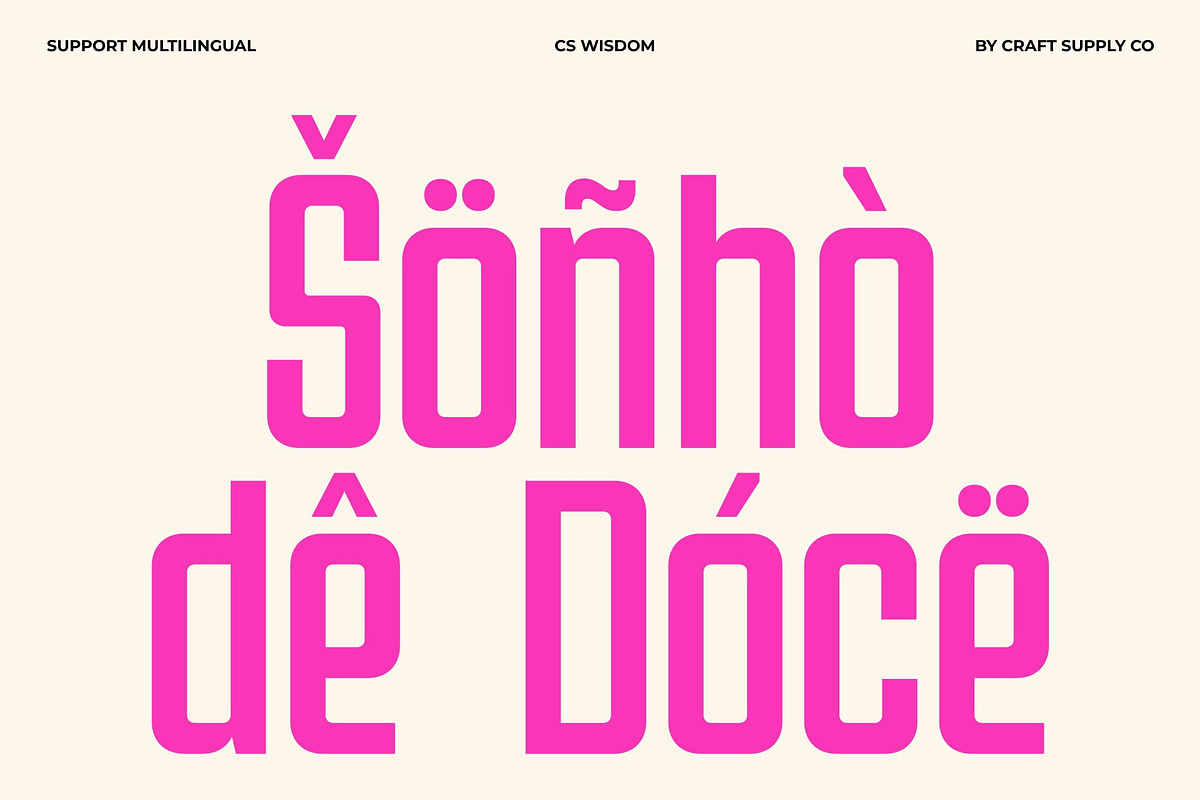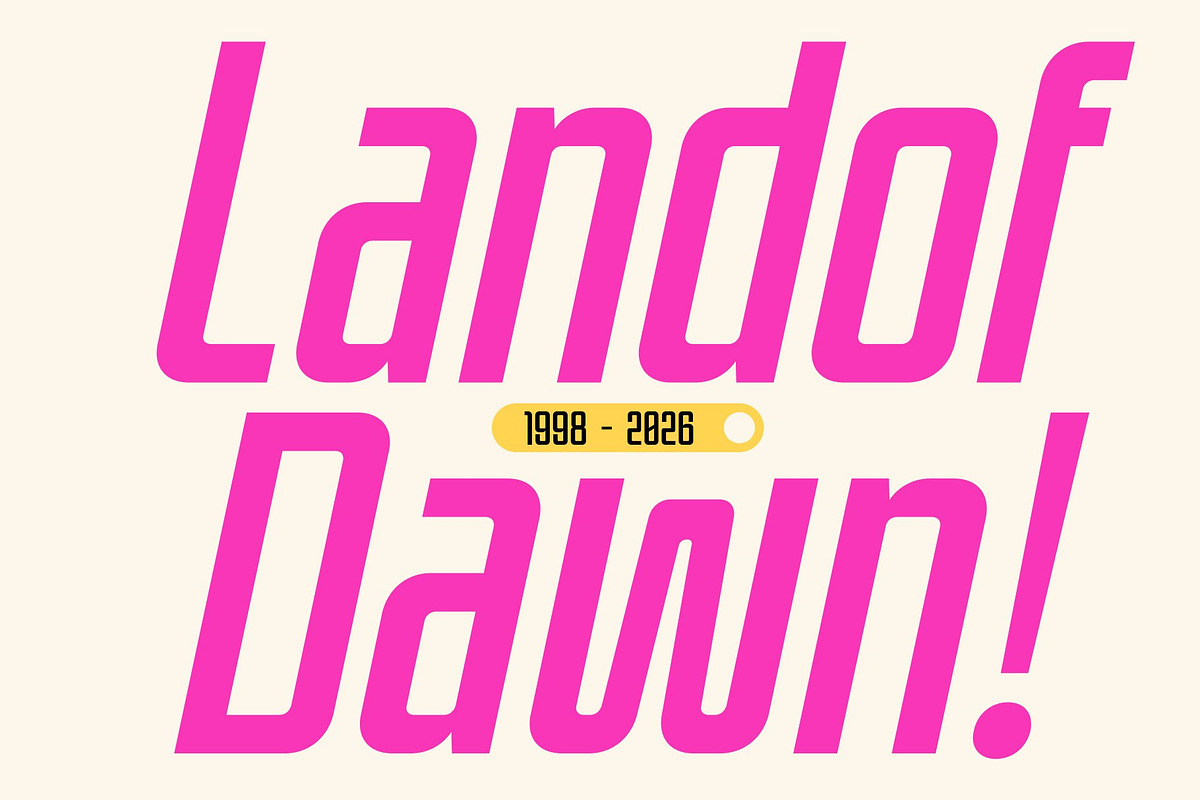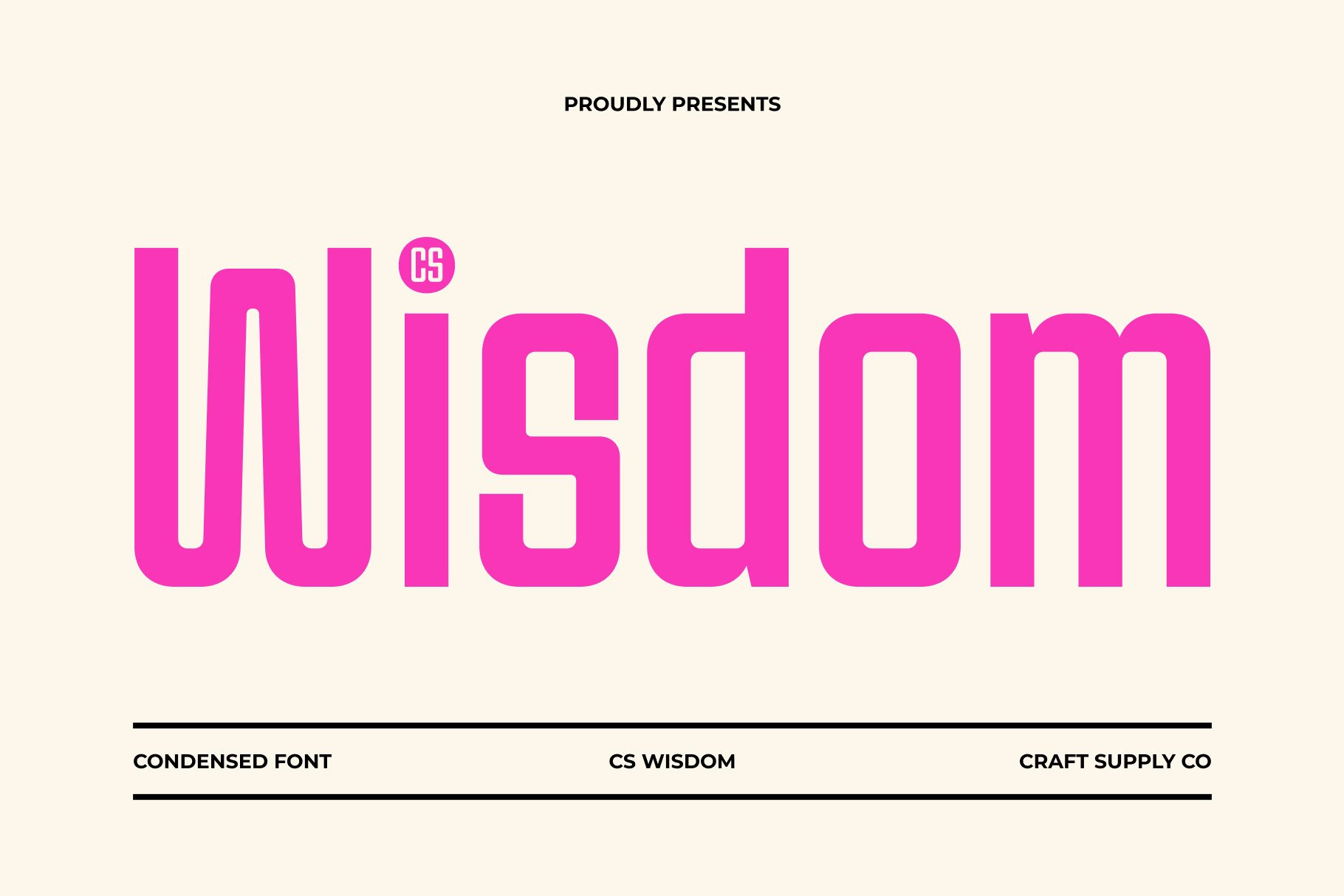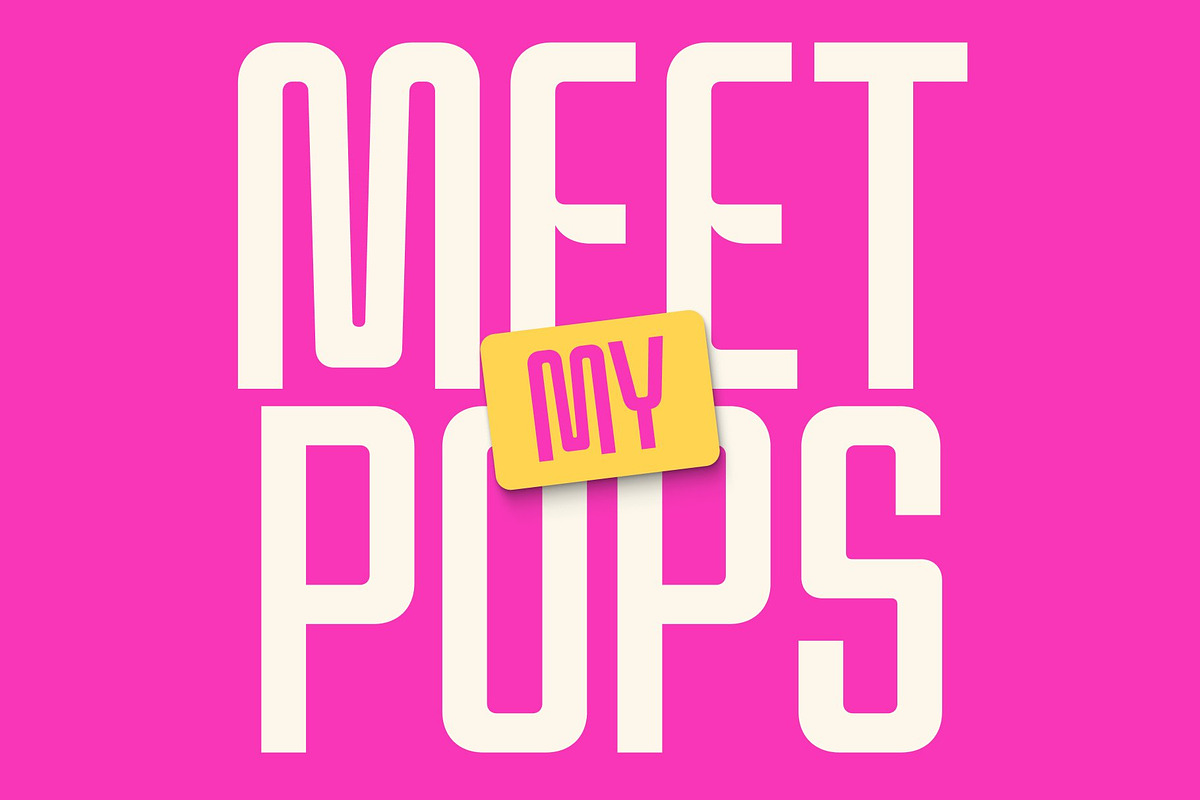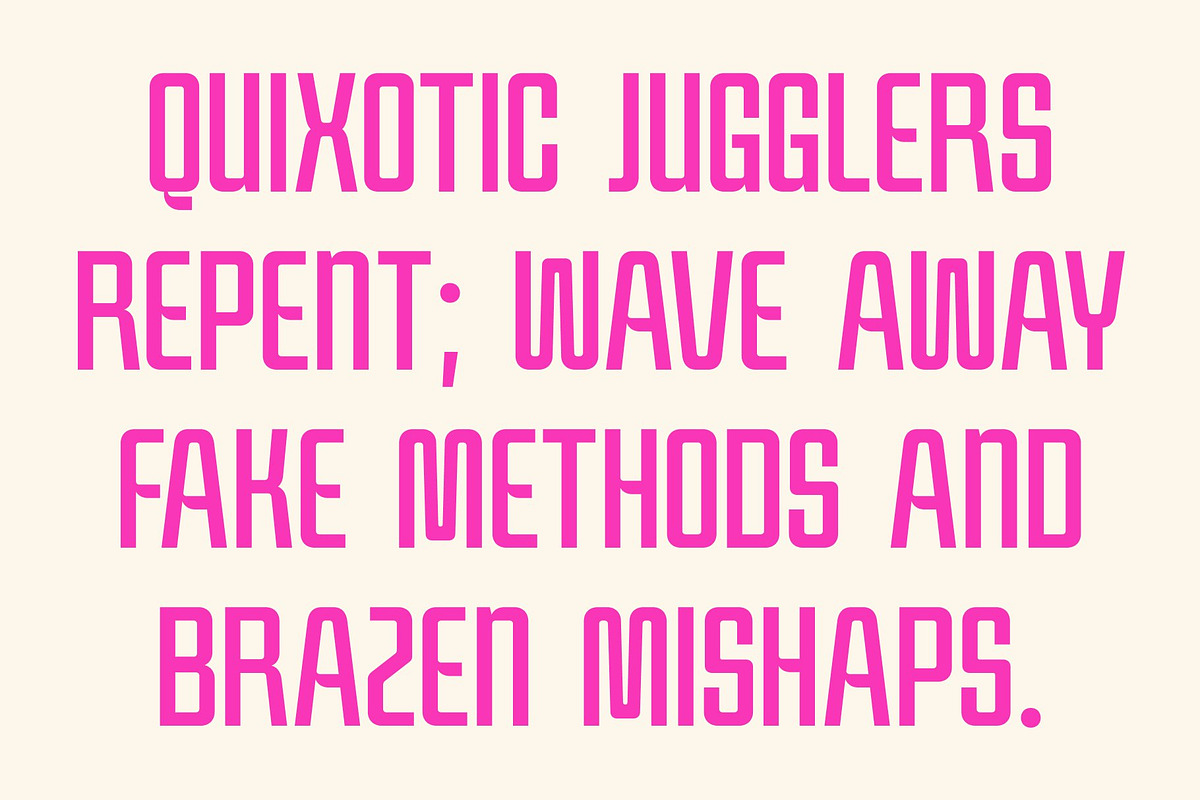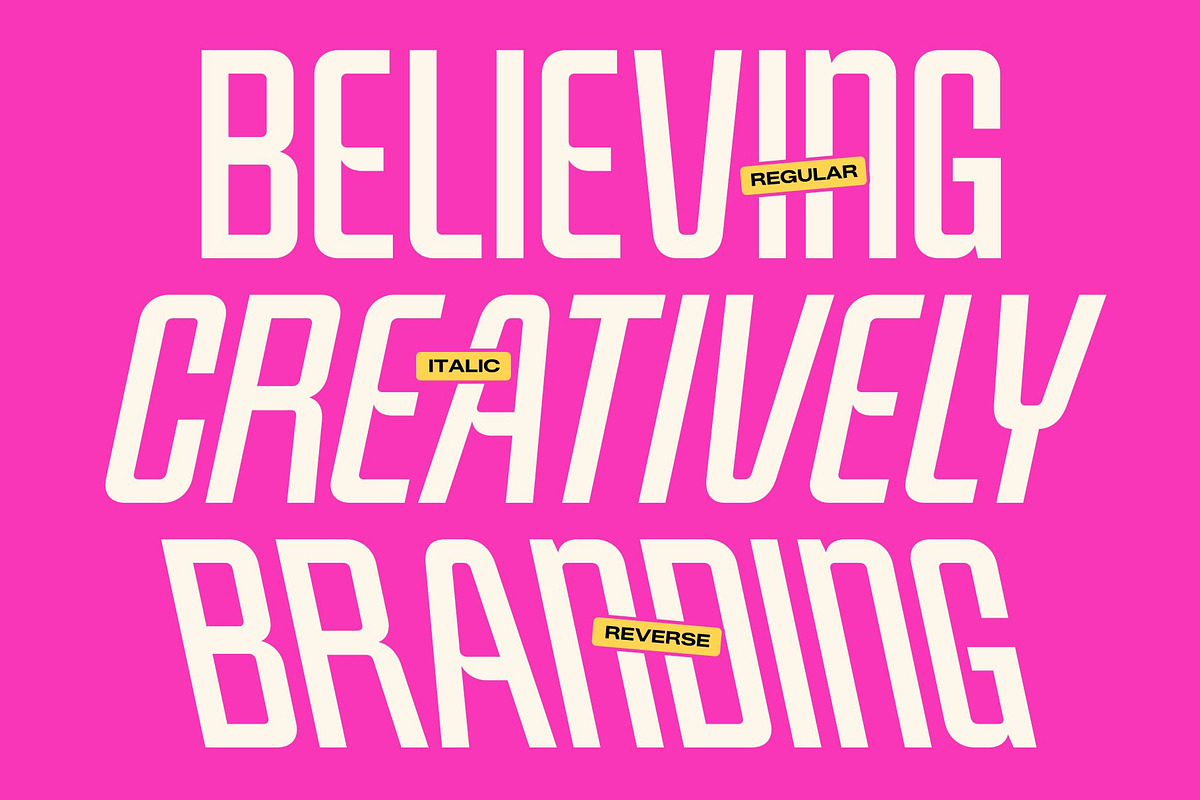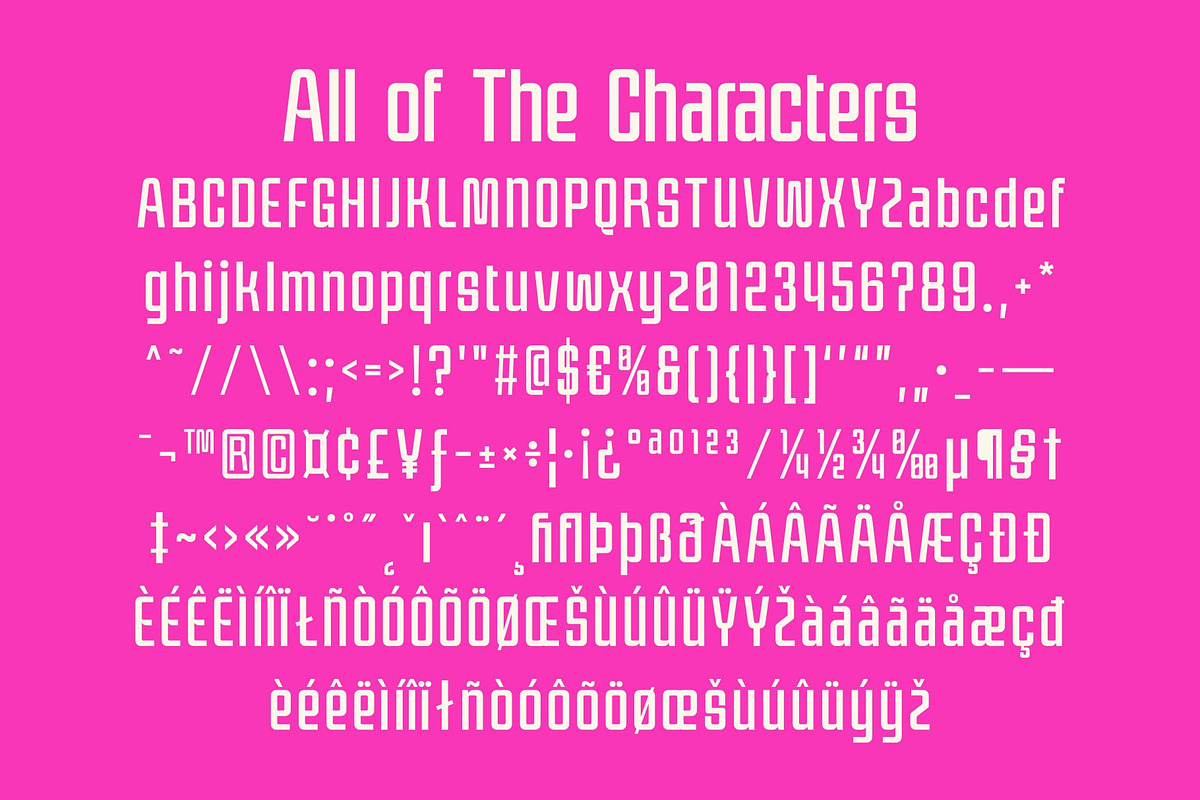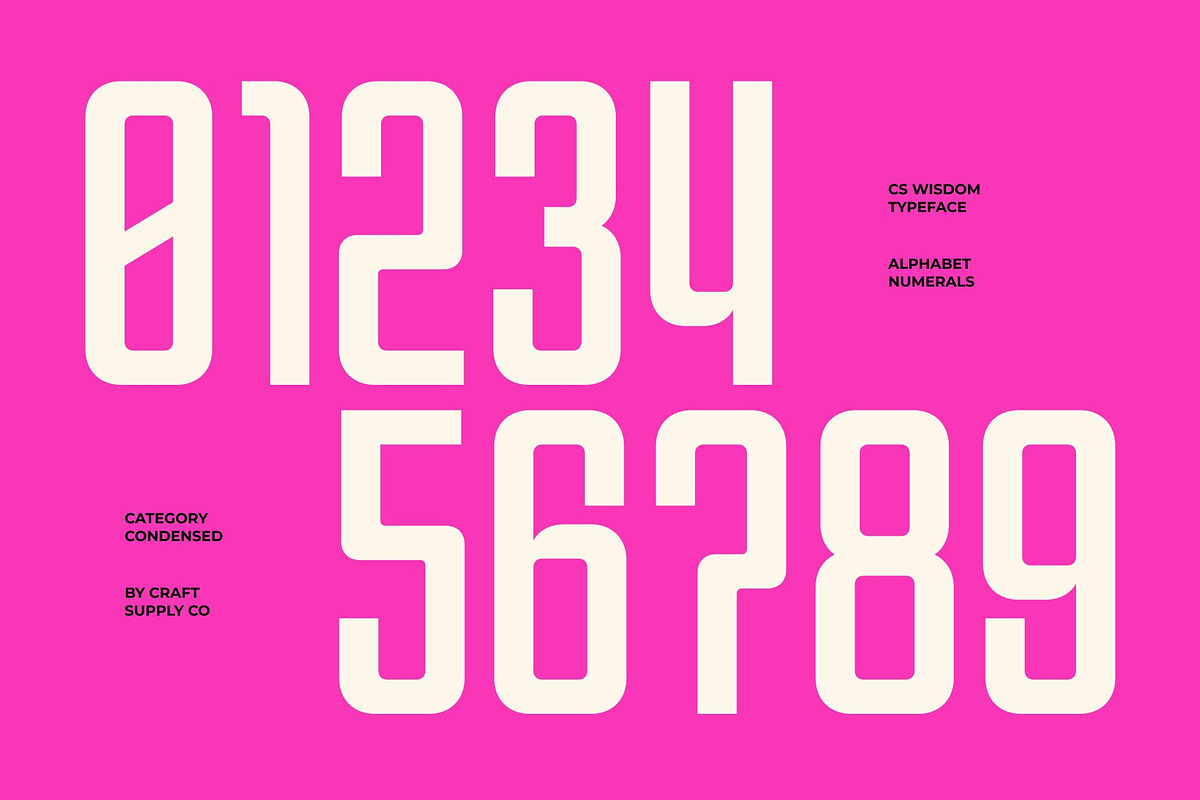
Wisdom – Condensed Font
CS Wisdom – Condensed Sans Serif with Clean Masculine Strength
Condensed Sans Serif with Modern Precision This is a compact and modern condensed sans serif font designed to project strength, clarity, and confidence. With its clean structure and masculine character, this typeface delivers bold visual impact while maintaining a refined and professional tone. It is crafted for designers who need typography that communicates authority and modern sophistication.
Built for Tight Spaces and Clear Messaging The condensed proportions allow more content to fit into limited layouts without sacrificing readability. Each letterform is carefully engineered to appear tall, balanced, and highly legible, making it ideal for headlines, posters, and branding where space efficiency is essential. This efficient structure ensures your message remains strong and visible in any composition.
Clean Lines with Masculine Character This font features sharp edges, confident strokes, and a structured silhouette that creates a powerful visual presence. The clean design keeps the font modern and versatile, while its bold personality helps designs feel assertive and professional. This balance makes it perfect for projects that demand clarity and strength.
Perfect for Headlines, Branding, and Posters Whether used for impactful headlines, bold posters, or strong brand identities, this font delivers reliability and presence. Its combination of readability, compact efficiency, and modern masculine style ensures your typography stands out with confidence and lasting appeal.
CS Wisdom Regular
CS Wisdom Italic
CS Wisdom Reverse Italic